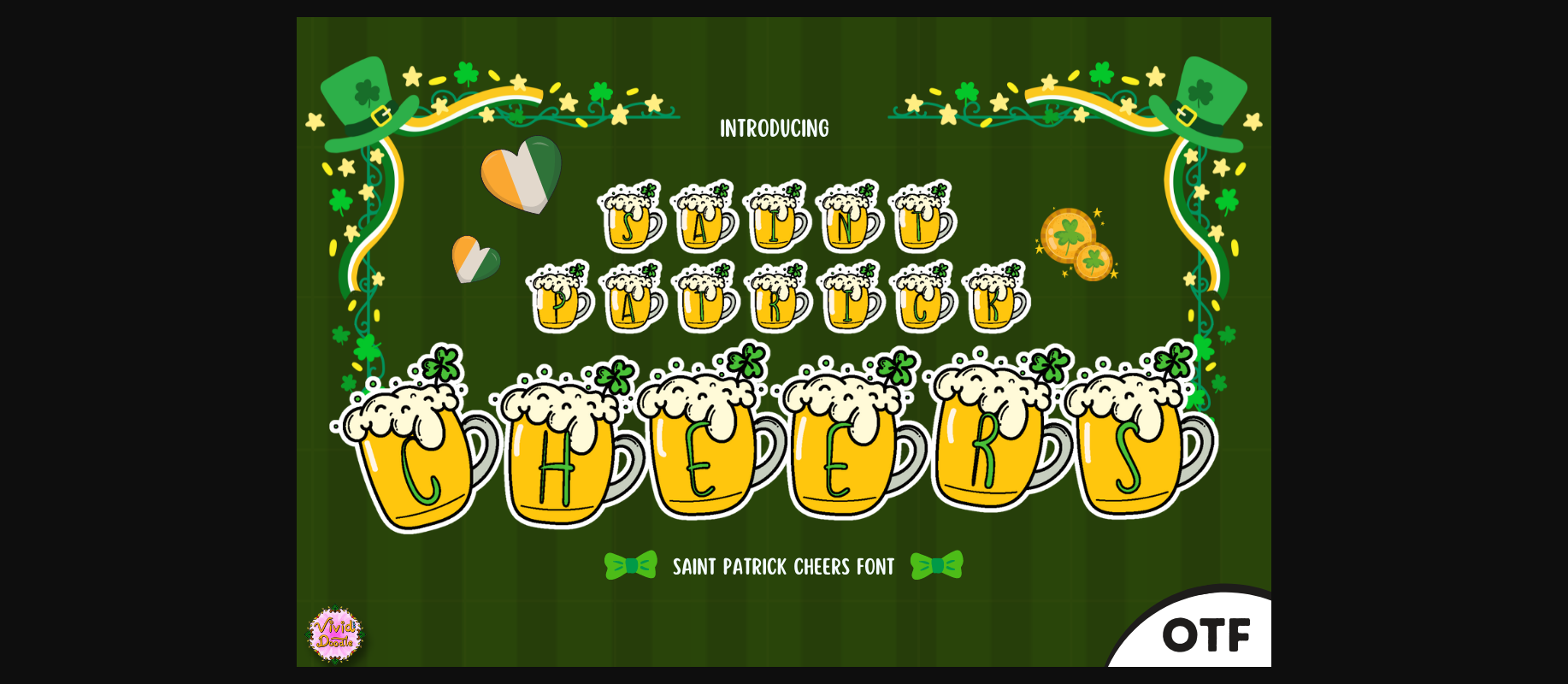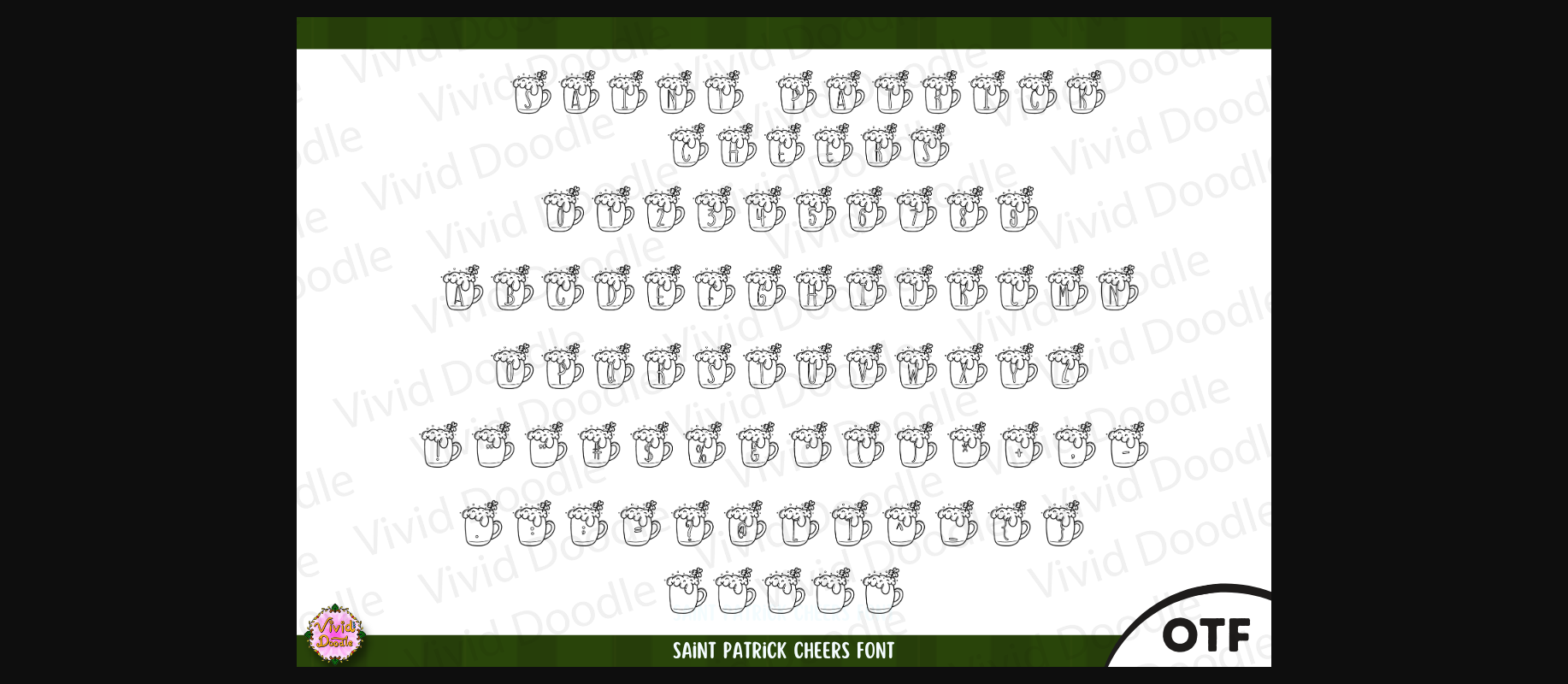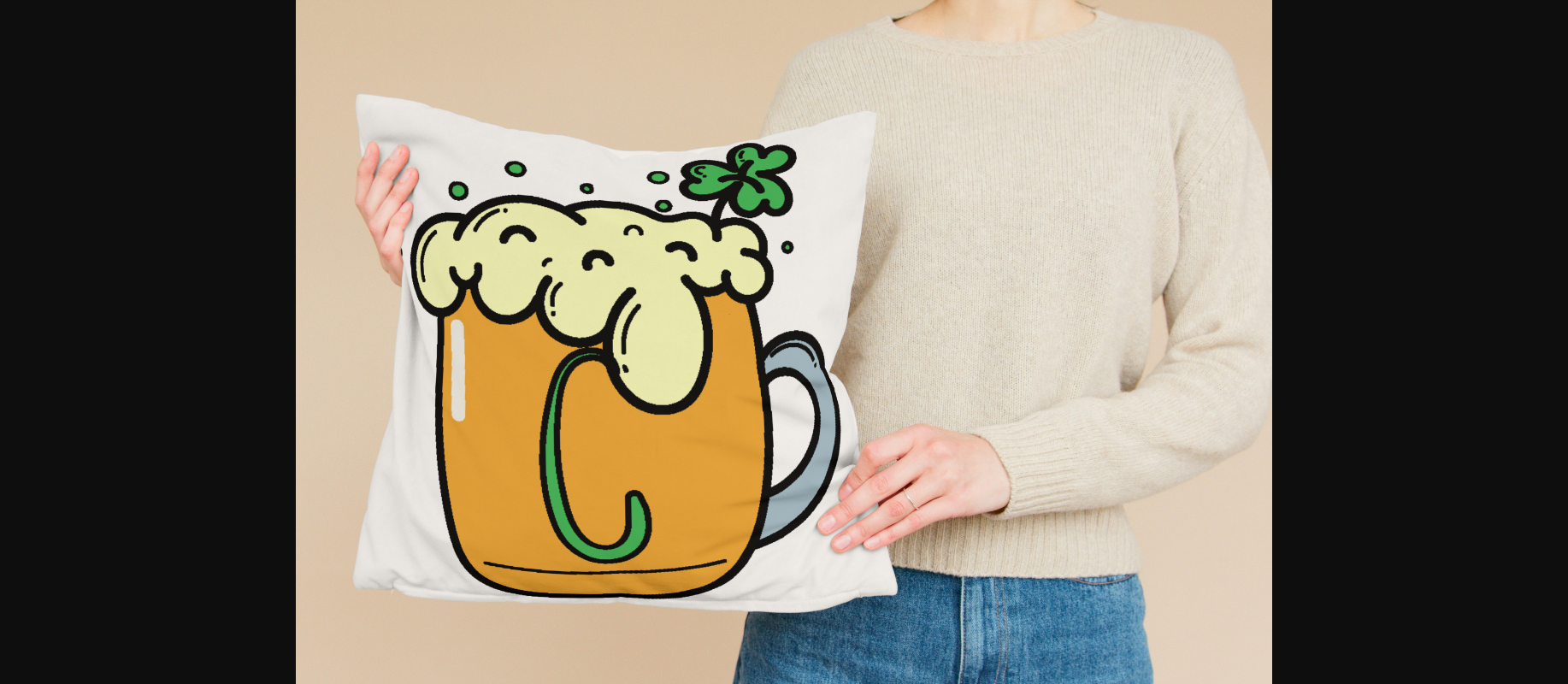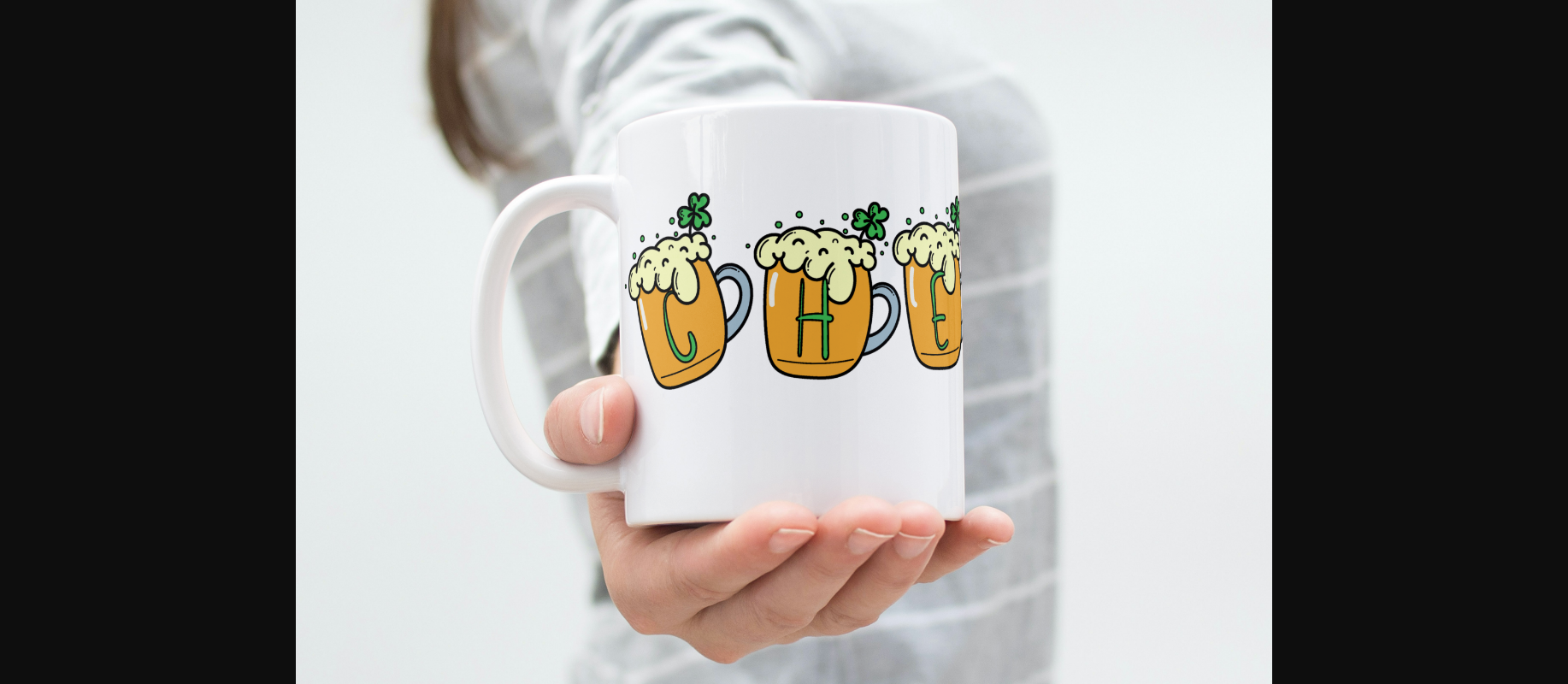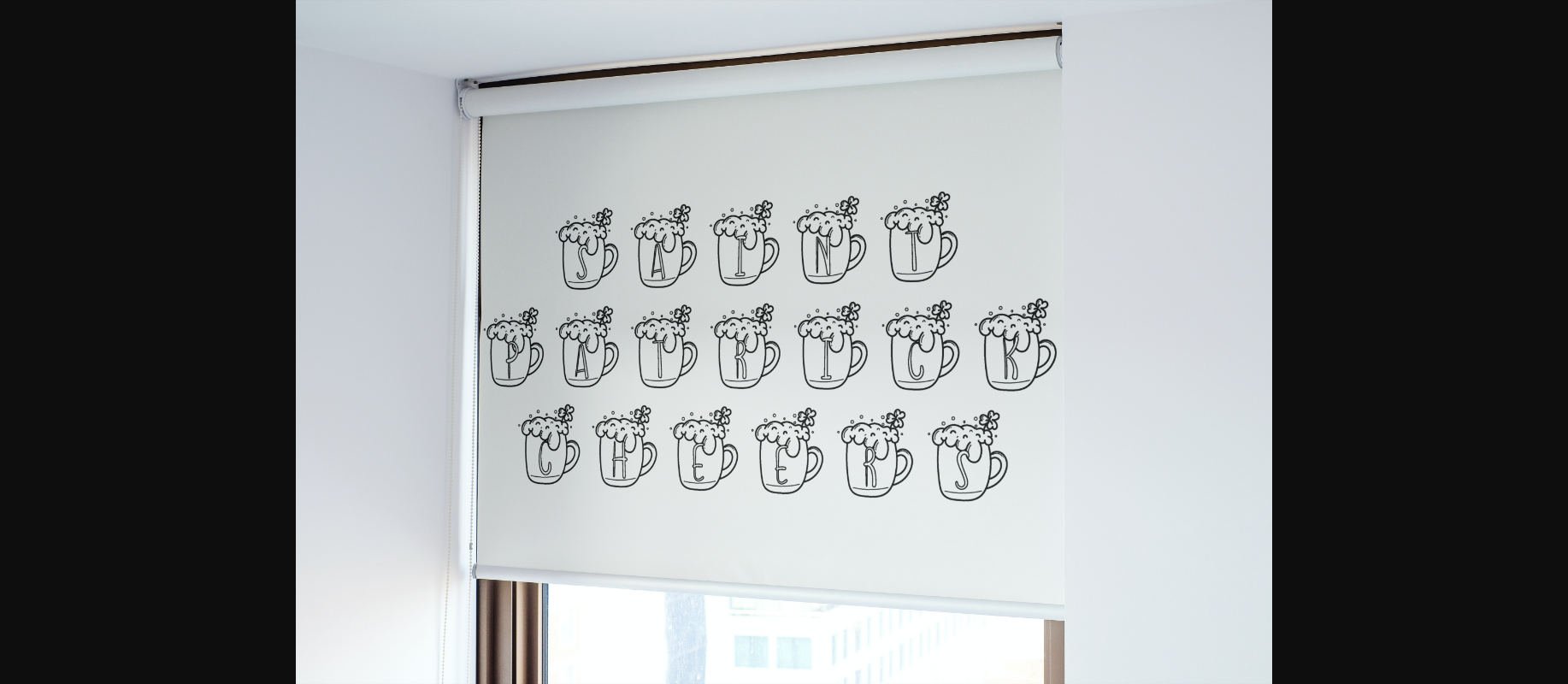
Saint Patrick Cheers Font
Saint Patrick Cheers — a festive and spirited typeface perfect for holiday designs, St. Patrick’s Day celebrations, cards, and various creative projects. Each letter carries the luck and cheer associated with St. Patrick’s Day, making it ideal for creating a joyful and celebratory atmosphere. Whether for party invitations, festive decorations, or any project that embraces the spirit of the Irish holiday, this font seamlessly blends a lively aesthetic with a touch of luck. Elevate your designs with the spirited allure of Saint Patrick Cheers font, turning every project into a visually captivating and festively inspired experience.